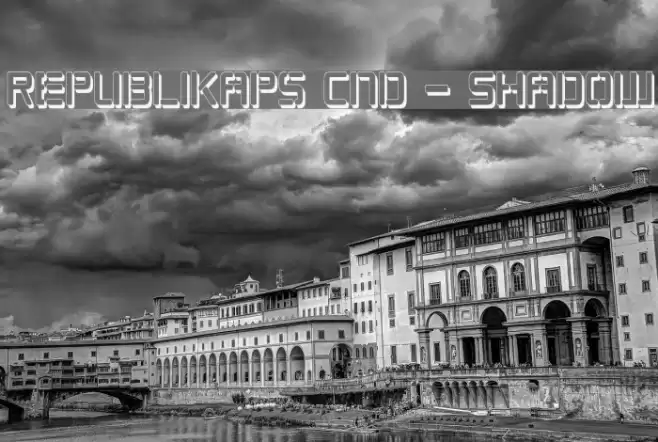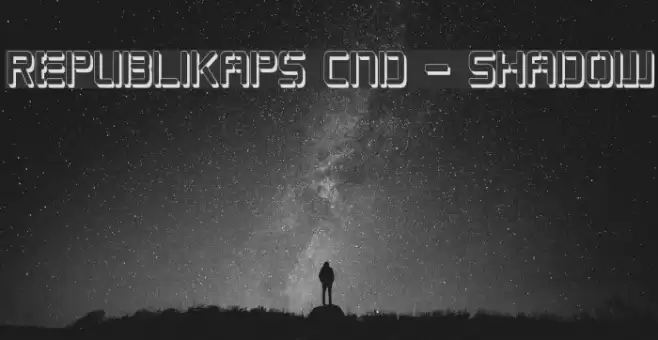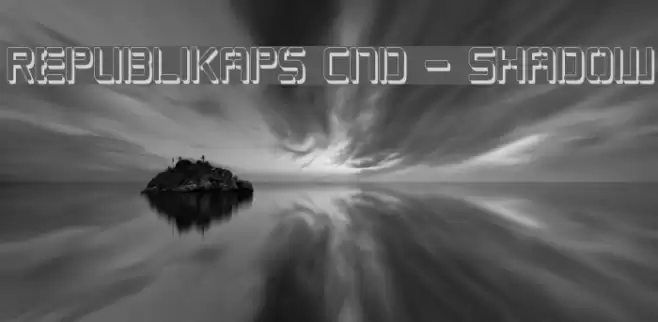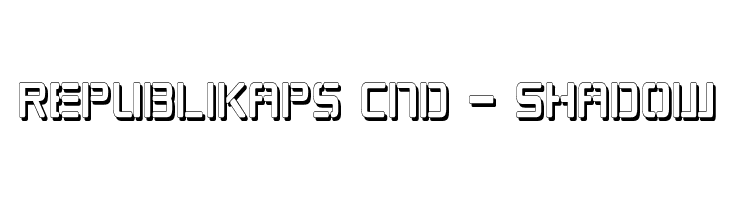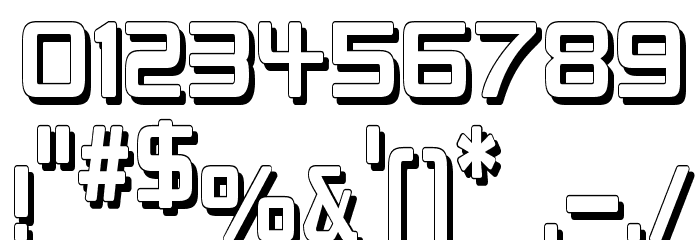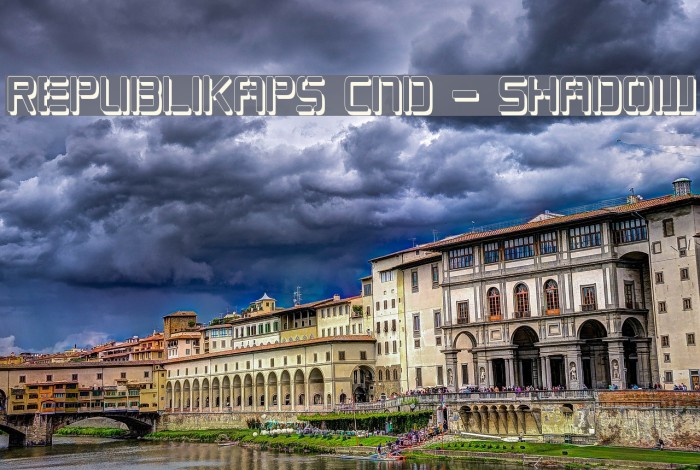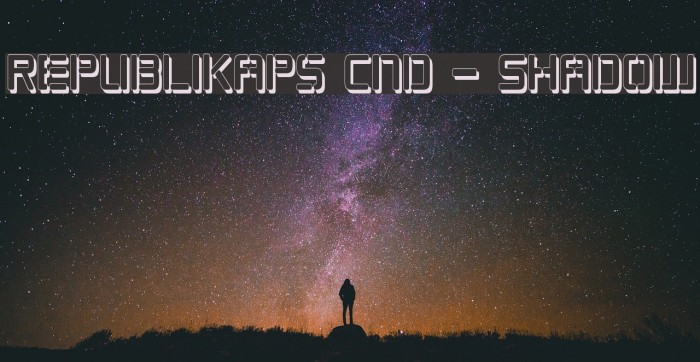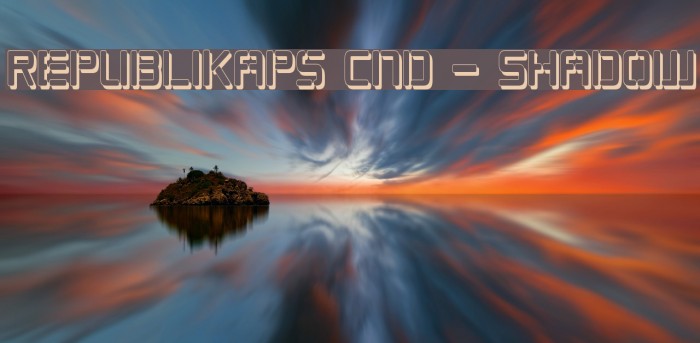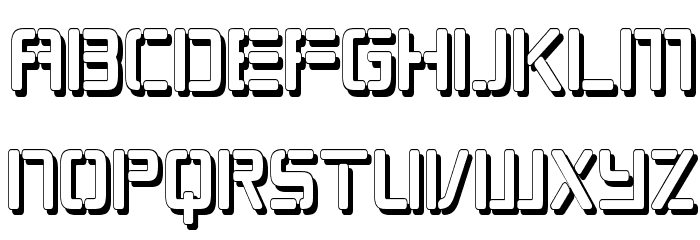
Republikaps Cnd - Shadow Font
Republikaps Cnd - Shadow Description
This font features a bold, geometric design with a shadow effect that gives it a three-dimensional appearance. The characters are constructed with straight lines and sharp angles, creating a futuristic and industrial feel. The shadow adds depth and makes the letters stand out, enhancing their visual impact. The uppercase and lowercase letters maintain a consistent style, with the shadow consistently applied to each character. The numerals and special characters follow the same design principles, ensuring uniformity across the font. This font's unique style makes it suitable for projects that require a modern and eye-catching typeface.
A bold, geometric font with a shadow effect for a 3D appearance from Uncategorized fonts.